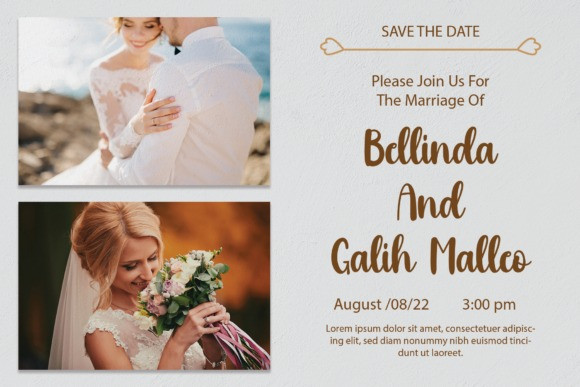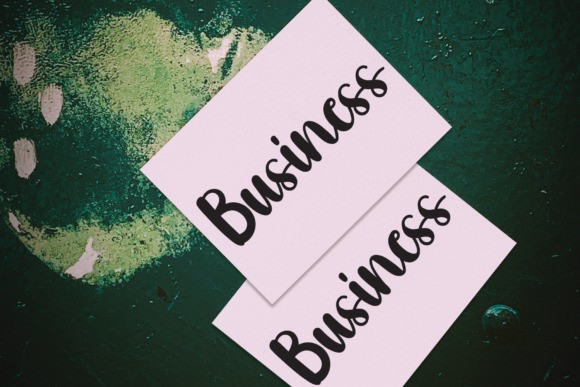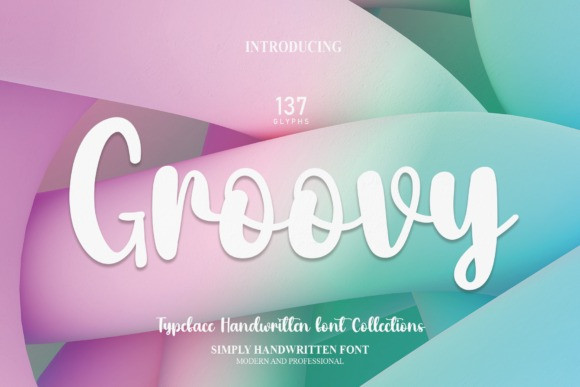
Groovy Font
Groovy Font is a trendy and fashionable script font. It is perfect for any branding project such as logos, t-shirt printing, creative products, and more. It will look extraordinary in a variety of contexts.